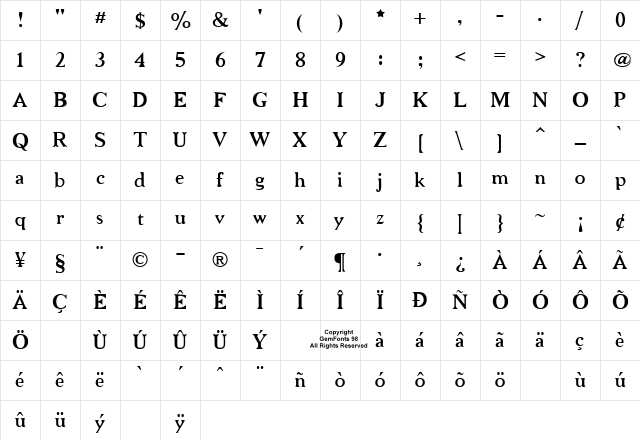
Niew CroMagnon Regular Free Font
Niew CroMagnon Regular
Complete Niew CroMagnon Regular glyph index. Displaying only characters natively supported by Niew CroMagnon Regular font.
Design Context for Niew CroMagnon
Niew CroMagnon is a composed and adaptable typeface that performs quietly and consistently across a wide range of design contexts.